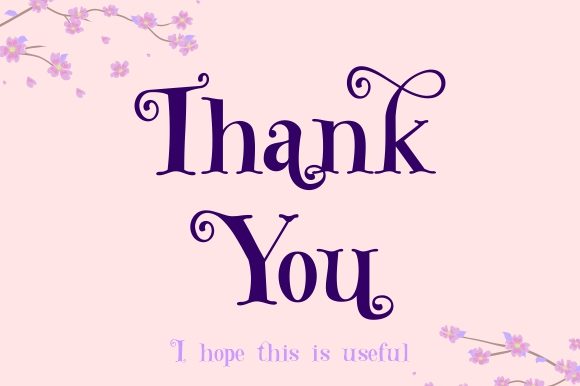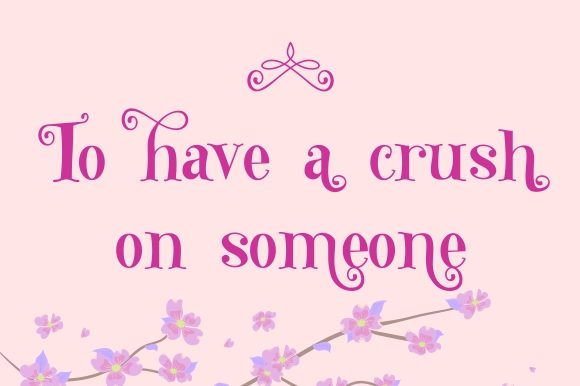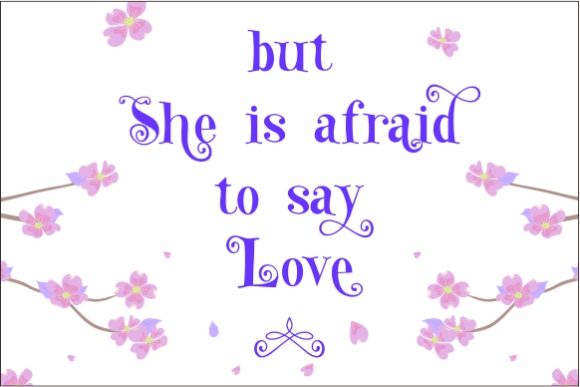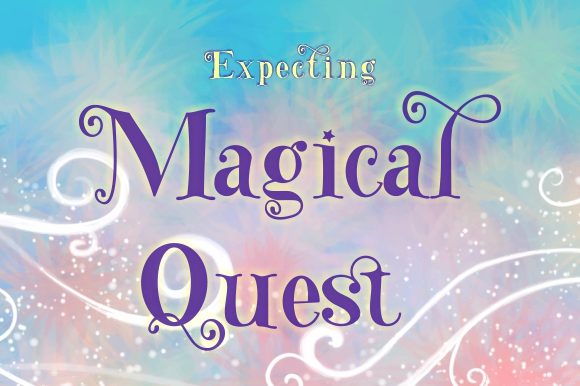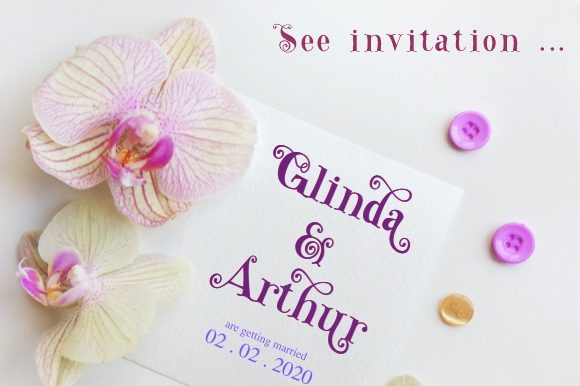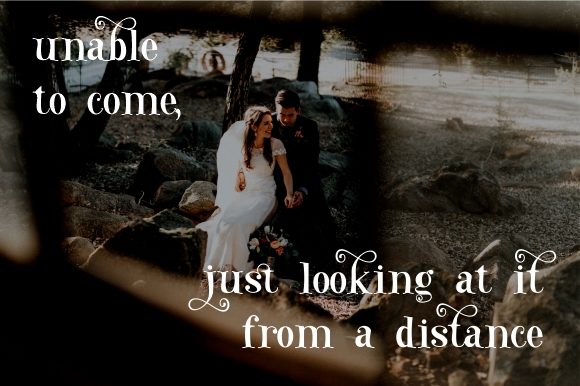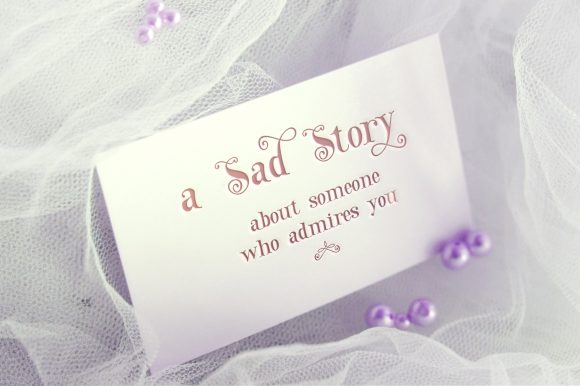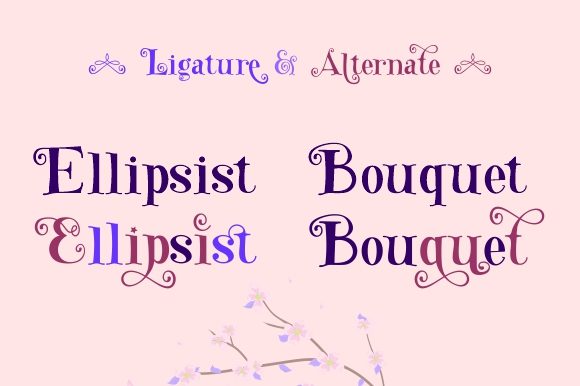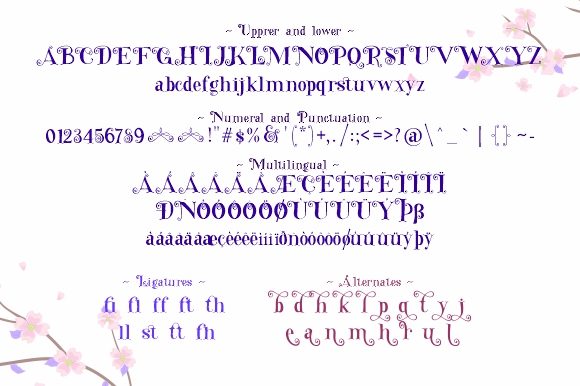
Secret Admirer Font
About Secret Admirer Font
Secret Admirer is a bouncy and quirky handwritten font. It features a friendly and romantic feel. Use Secret Admirer to bring any DIY project to life!